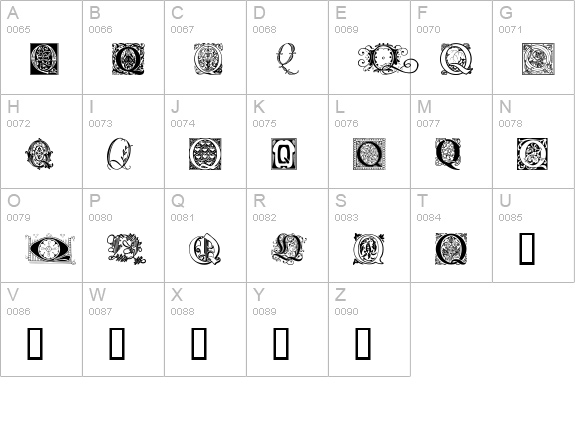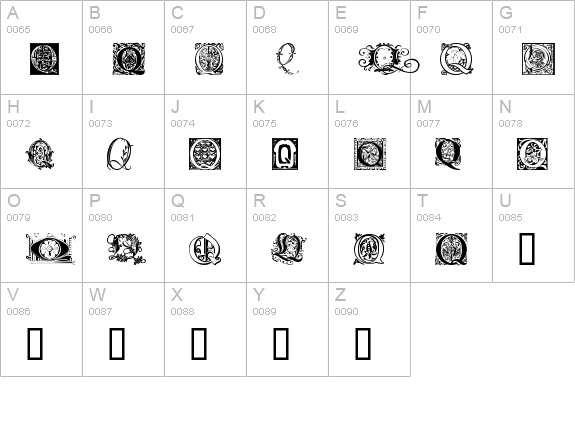
Ornamental Initials Q font is a stunning and elegant typeface that exudes sophistication and charm. With intricate details and ornate embellishments, this font is perfect for adding a touch of luxury to any design project. The ornamental initial "Q" is beautifully crafted, creating a sense of grandeur and refinement. Best of all, Ornamental Initials Q font is completely free to download at FontsMarket.com. Whether you're working on wedding invitations, branding materials, or any other creative endeavor, this font is sure to make a statement. Enhance your projects with the timeless beauty of Ornamental Initials Q font, available for free download now.